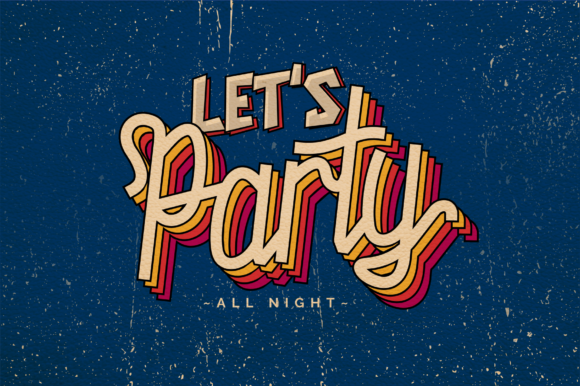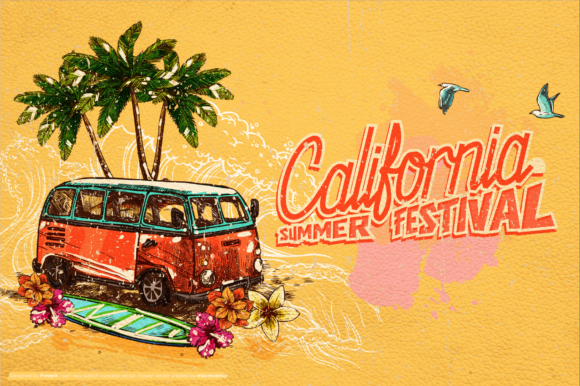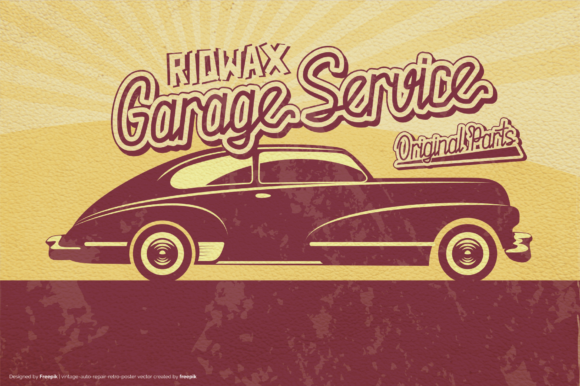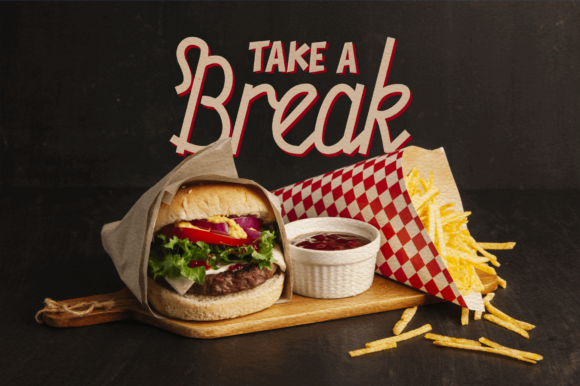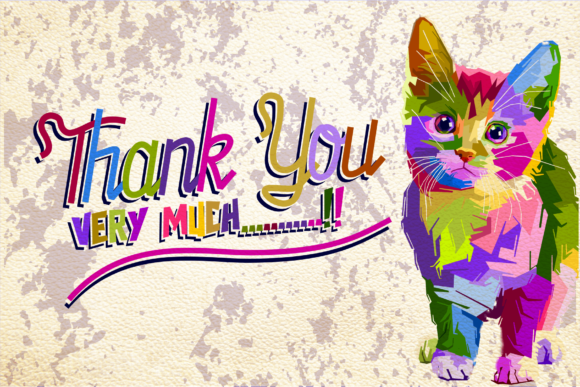
Firnaily Font: Elevate Your Designs with a Retro Twist
Are you a designer or crafter looking to add a touch of nostalgia to your work? Look no further than the Firnaily Font, a stunning retro-themed display font that’s sure to elevate your designs. With its lovely swashes and classic charm, Firnaily is the perfect choice for anyone seeking to infuse their projects with a vintage vibe.
The Charm of Firnaily Font
Firnaily Font is a beautifully crafted display font that exudes a sense of nostalgia and sophistication. Its retro theme is reminiscent of classic typography from the past, with elegant swashes that add a touch of luxury to any design. Whether you’re working on a logo, poster, or packaging design, Firnaily is sure to make your project stand out.
Key Features of Firnaily Font
- Retro-themed design: Firnaily Font boasts a classic, retro aesthetic that’s perfect for designers and crafters looking to add a vintage touch to their work.
- Lovely swashes: The font features beautiful swashes that can be used to add a decorative flourish to your designs.
- Display font: Firnaily is a display font, making it perfect for headlines, titles, and other prominent design elements.
Uses for Firnaily Font
Firnaily Font is a versatile design asset that can be used in a wide range of projects, including:
- Logos and branding: Use Firnaily Font to create a memorable logo or brand identity that stands out from the crowd.
- Posters and flyers: Add a touch of nostalgia to your posters and flyers with Firnaily Font’s retro-themed design.
- Packaging design: Use Firnaily Font to create eye-catching packaging that reflects your brand’s personality.
- Invitations and greeting cards: Add a touch of elegance to your invitations and greeting cards with Firnaily Font’s beautiful swashes.
Tips for Using Firnaily Font
To get the most out of Firnaily Font, here are a few tips to keep in mind:
- Use it sparingly: Firnaily Font is a display font, so it’s best to use it sparingly to add emphasis to your designs.
- Experiment with swashes: Firnaily Font’s swashes are a key feature, so don’t be afraid to experiment with different combinations to find the one that works best for your design.
- Pair it with other fonts: Firnaily Font can be paired with other fonts to create a unique and visually appealing design.
In conclusion, Firnaily Font is a stunning retro-themed display font that’s perfect for designers and crafters looking to add a touch of nostalgia to their work. With its lovely swashes and classic charm, Firnaily is sure to elevate your designs and make them stand out from the crowd. So why wait? Download Firnaily Font today and start adding a retro twist to your designs!